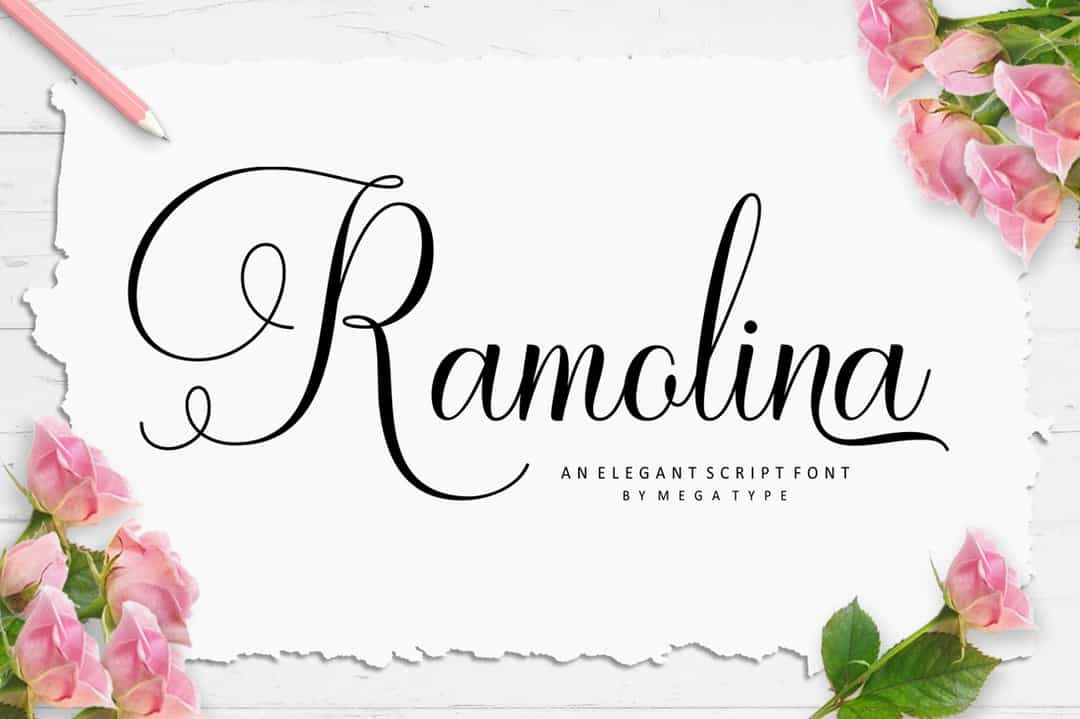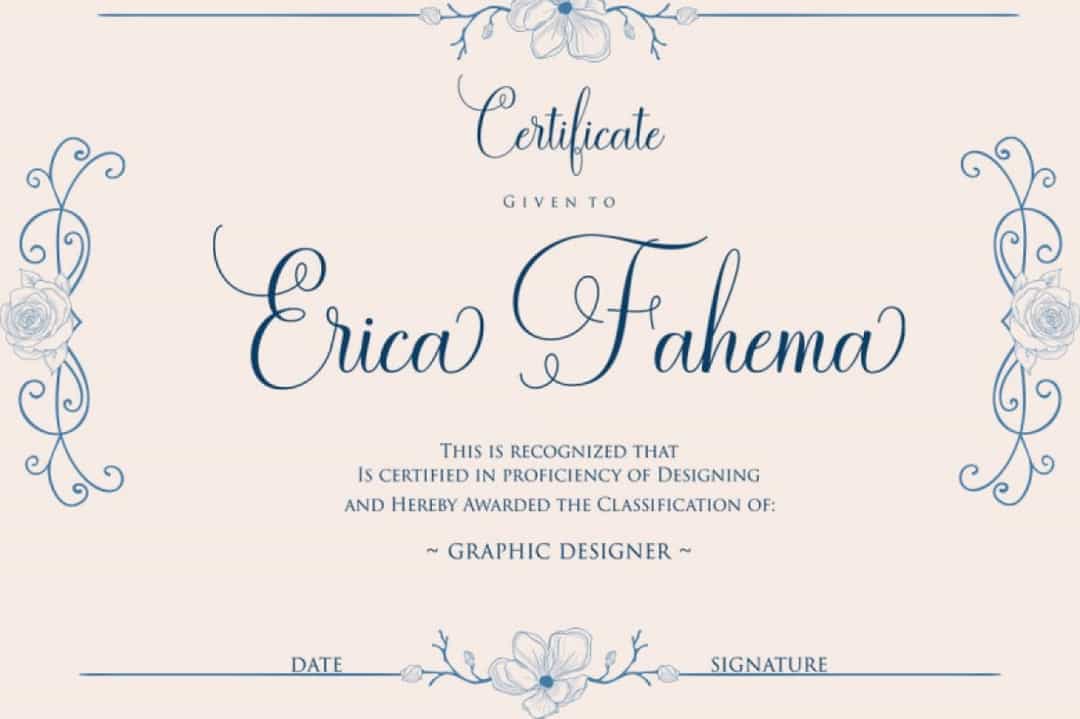
Ramolina features an exquisite script calligraphy font with captivating alternate characters. A combination of handwriting style and copperplate calligraphy, Ramolina was designed to convey style and sophistication. Elegant yet sleek and feminine in appearance, its clean, elegant and glamorous style make Ramolina easy to read and highly usable typeface make Ramolina truly gorgeous typeface!